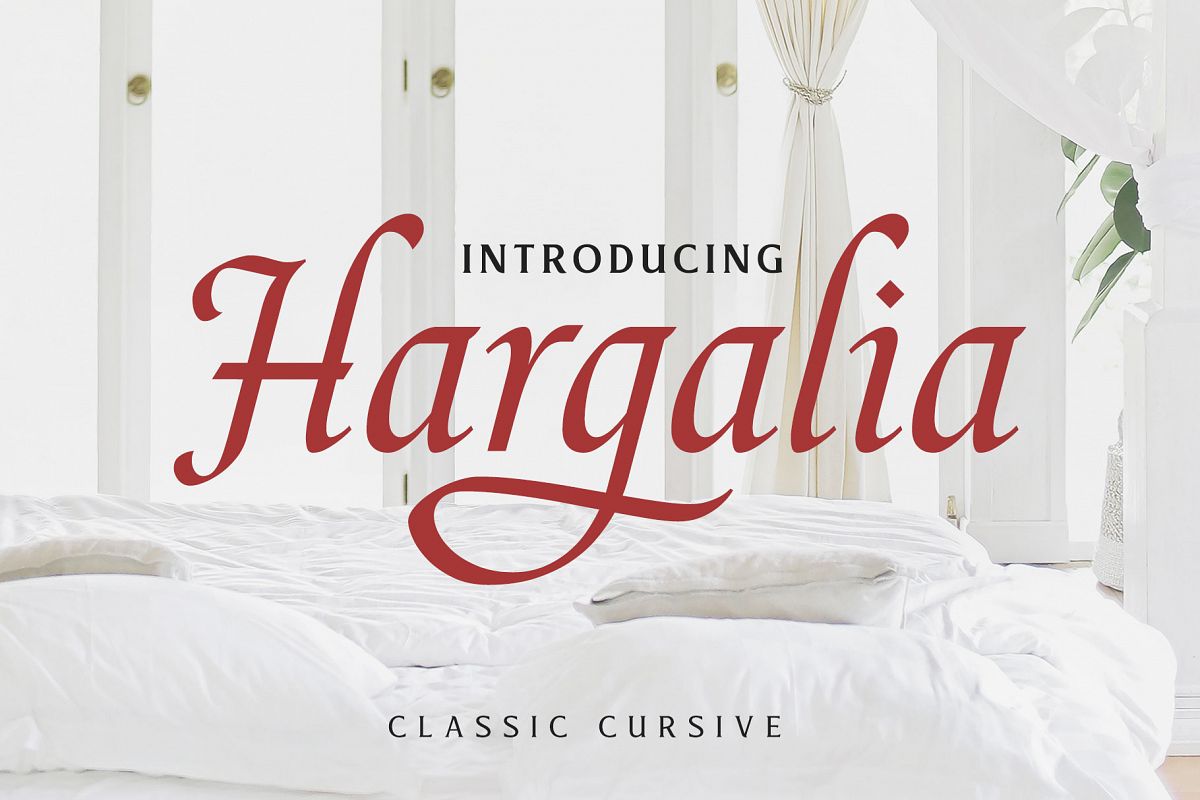
Hargalia
Introducing Hargalia, a beautiful cursive typeface.
Inspired by classic cursive calligraphy from the Carolingian Renaissance era (about 8 century) which in that era, the alphabet letterform was perfected for the first time with many curvy strokes with a flat brush. Hargalia designed with penmanship and carefully digitize with many swashes included.
Hargalia typeface designed for a headline and short body text. The natural strokes with calligraphic feel that highly recommended for fashion, branding, magazine, editorial, logotype, packaging, historical quotes, and etc. This font is PUA Encoded with 430 glyphs in total! Worth every penny!
• Symbols
• Punctuation
• Stylistic alternates
• Contextual alternates
• Swashes
• Stylistic set 001 - 003